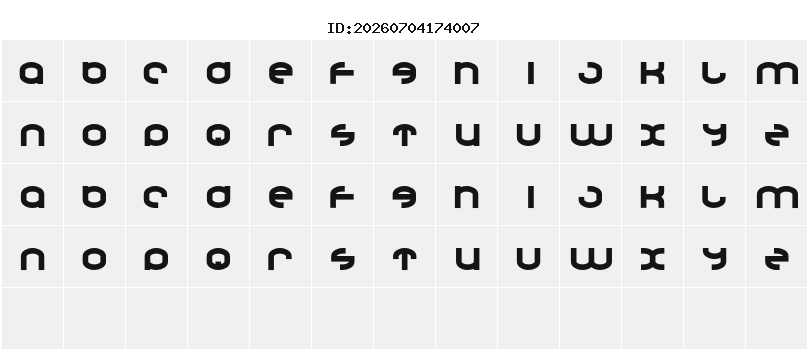
• Font Name: Droncat
• Full Font Name: Droncat
• PostScript Name: Droncat
About Droncat.otf
Droncat.otf is a modern, elegant sans-serif font designed for ultimate readability and visual harmony. Perfect for branding, headlines, web design, and print materials.